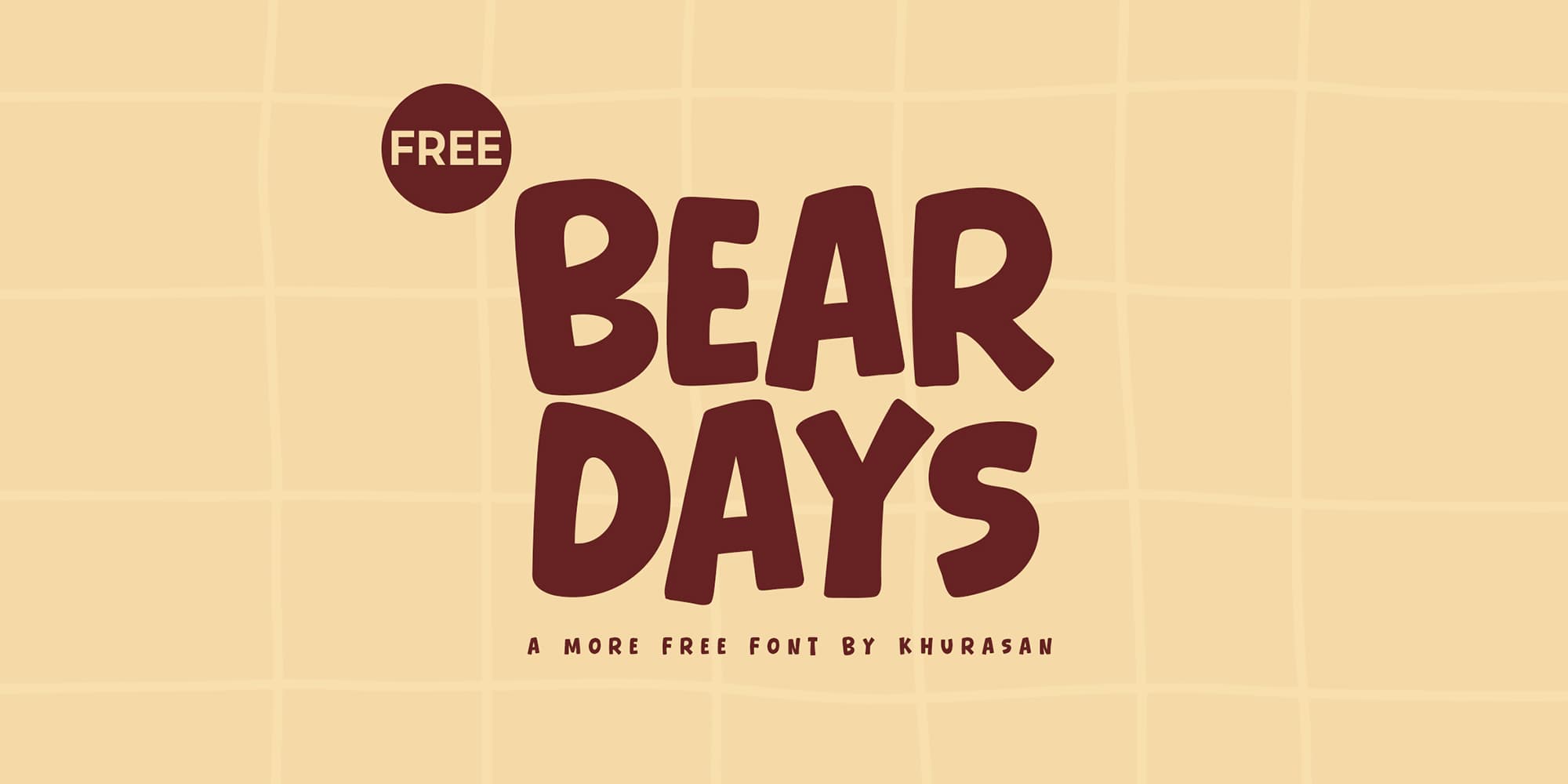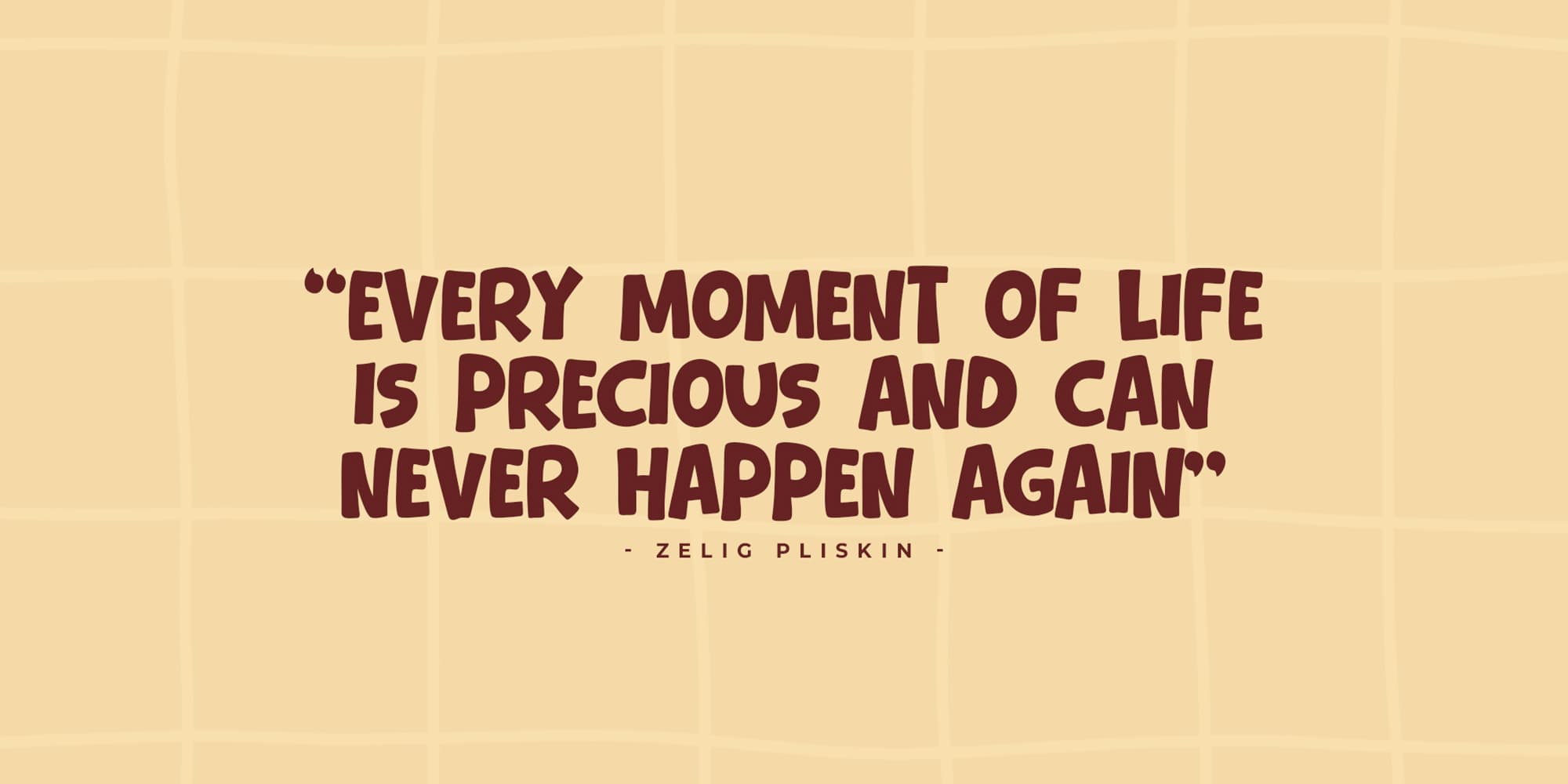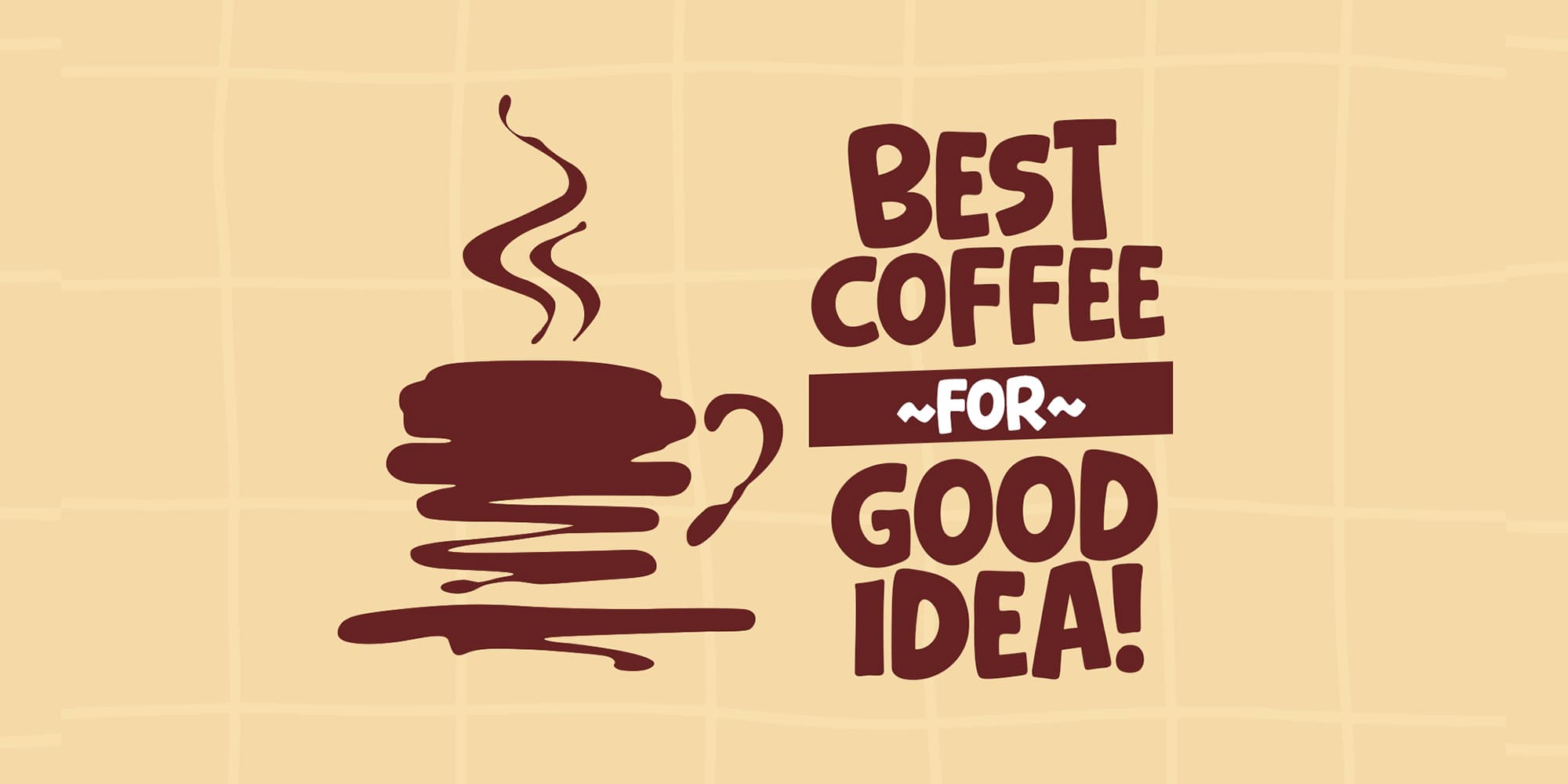
Bear Days Font
by Khurasan
Display
Bear Days is a modern and cute display font perfect for posters, logos, magazines, book covers, banners, and many more! Get this amazing font, and use it to create lovely designs. It can easily be matched to an incredibly large set of projects, so add it to your creative ideas and notice how it makes them stand out!